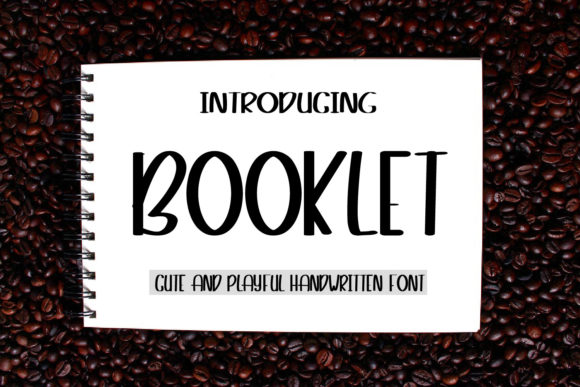
Introducing Booklet Font, the handwritten font that exudes cuteness and friendliness, captivating you with its playful and quirky charm. This font is not just a collection of letters; it's an adventure, a journey through the realm of creativity, where imagination knows no bounds.
With Booklet Font, your designs will dance off the page, brimming with personality and flair. Its playful nature adds a touch of whimsy to your logos, branding, posters, and crafty DIY projects. Imagine your designs coming alive, captivating your audience with their infectious energy and charm.
Booklet Font is more than a font; it's a statement, a reflection of your unique style and vision. It's the perfect companion for unleashing your creativity, transforming your ideas into stunning realities. Let Booklet Font ignite your imagination and take your designs to new heights.
Step into a world of limitless possibilities, where Booklet Font dances across your designs, captivating hearts and leaving an unforgettable impression. Embrace the magic of this font and watch your creations flourish.